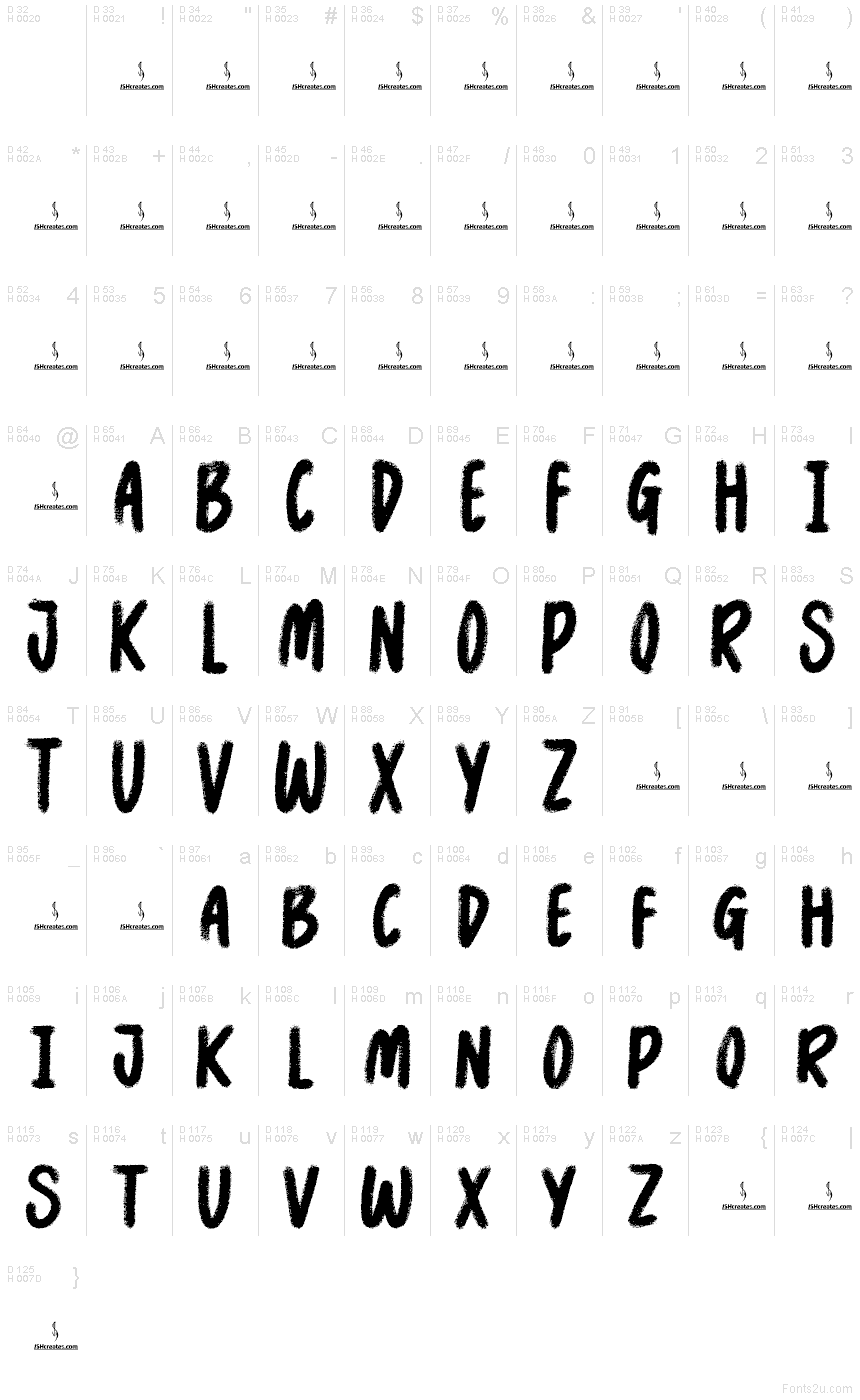
Thug Land
Thug Land font by JSH creates is exactly what you’re looking for. This free display font doesn’t only stand out because it’s bold but also because of its eroded, rugged texture. The distressed appearance of the characters gives out a casual and expressive feel with a graffiti influence.
Use Thug Land in graffiti art, posters, album covers, tote bags, packaging boxes, pins & badges, social media posts/signs/banners/ads and other digital projects like websites or apps.